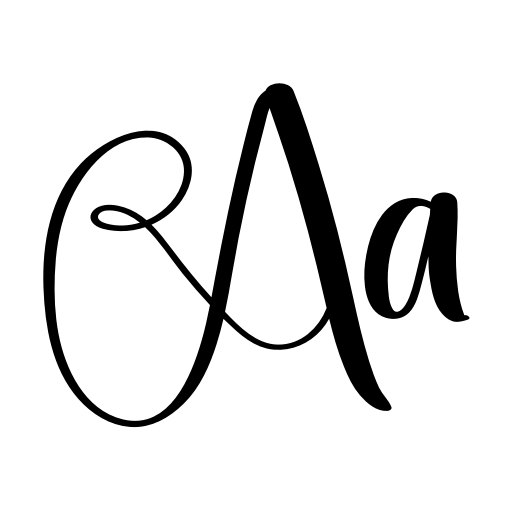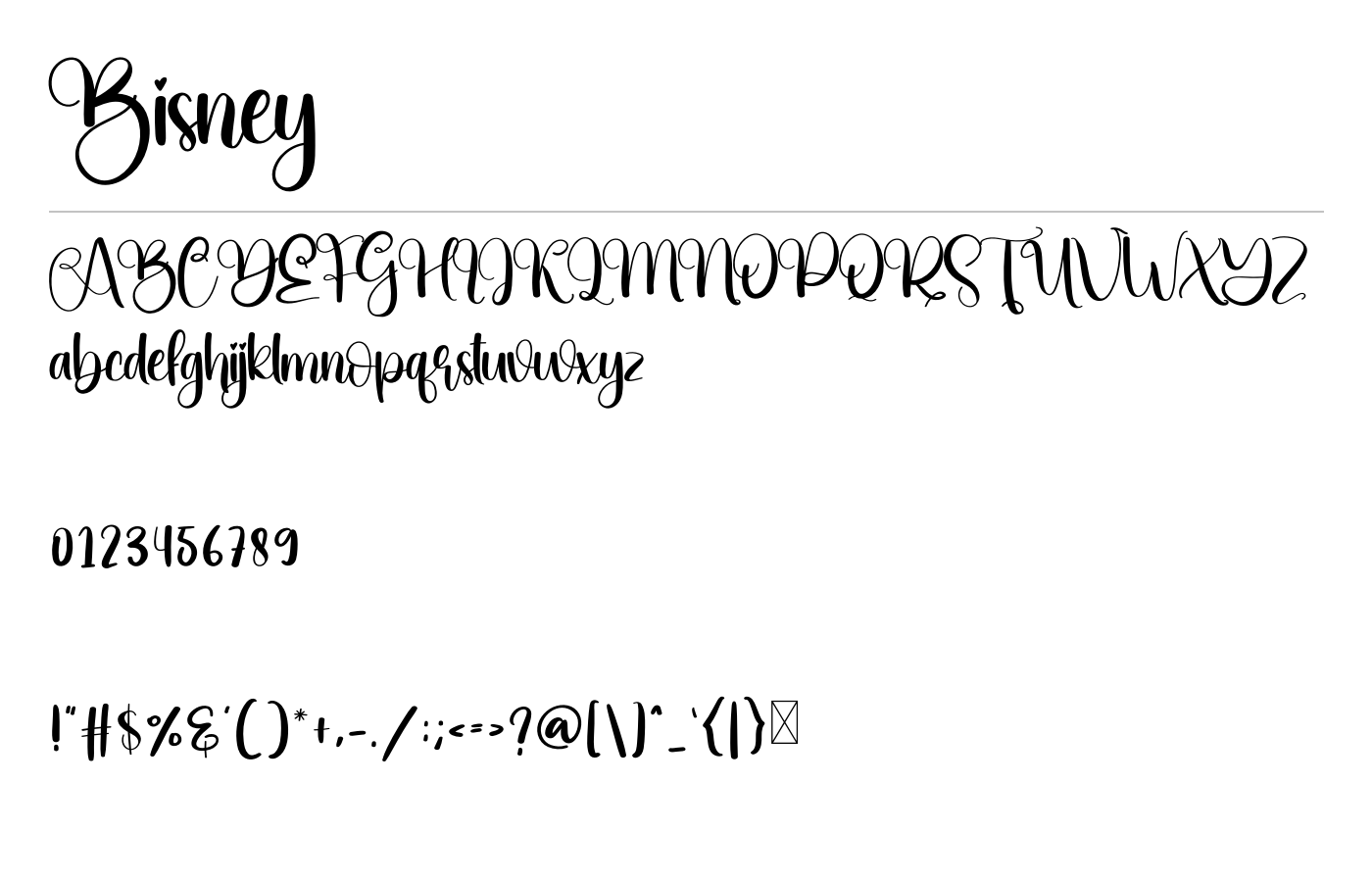
Bisney is a playful and elegant script font with flowing letterforms and delicate swashes that add a charming, hand-lettered feel. Its mix of bold strokes and smooth curves make it perfect for inviting designs such as wedding invitations, branding, and greeting cards where a personal and friendly touch is desired. This font works best in display settings, bringing a lively and approachable personality to creative projects.
Bisney Font